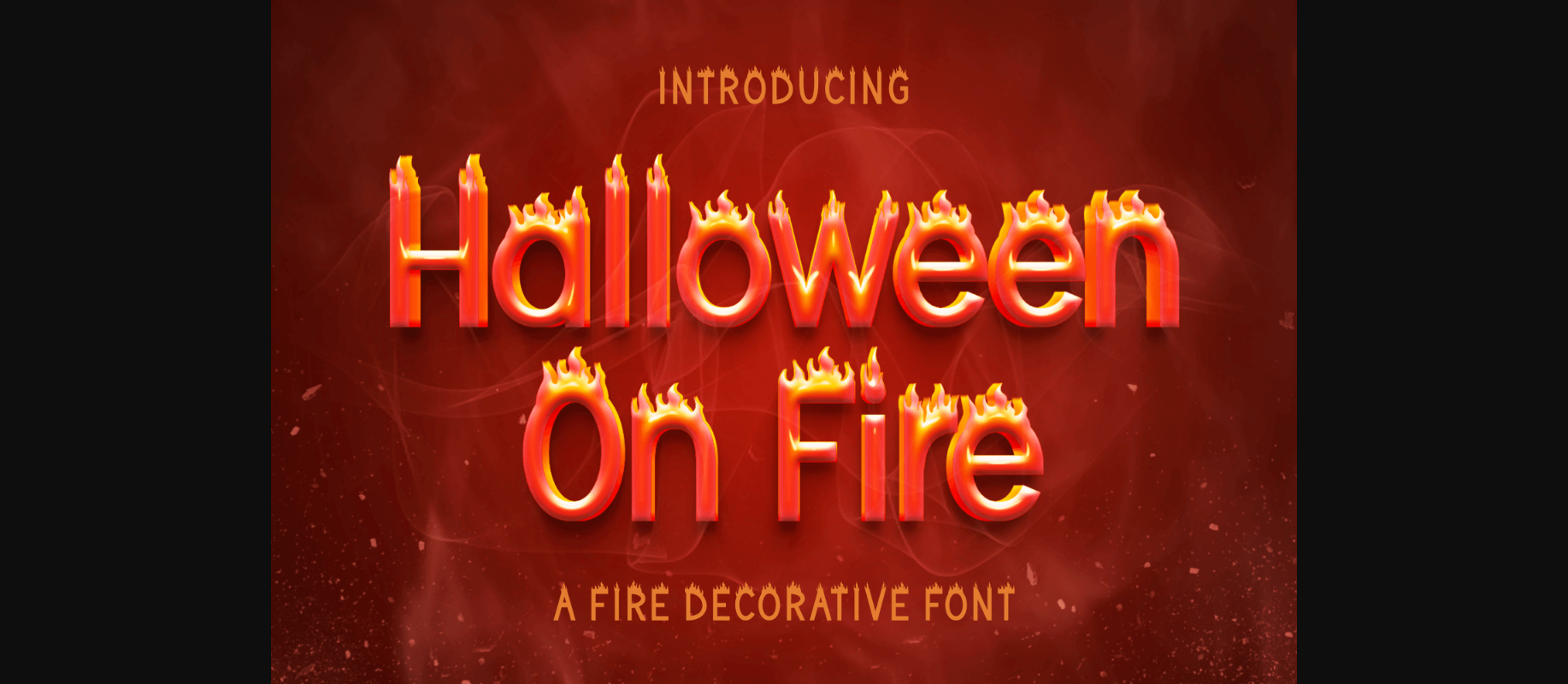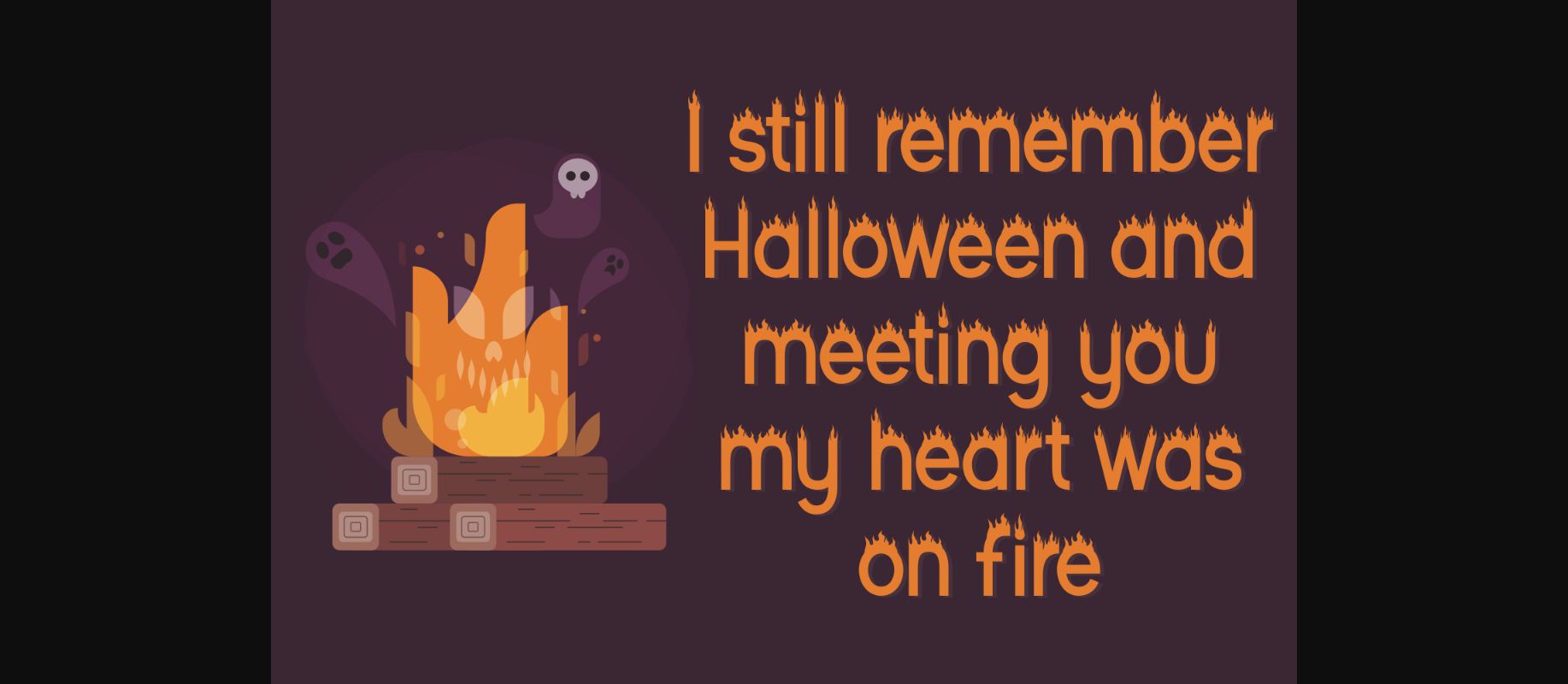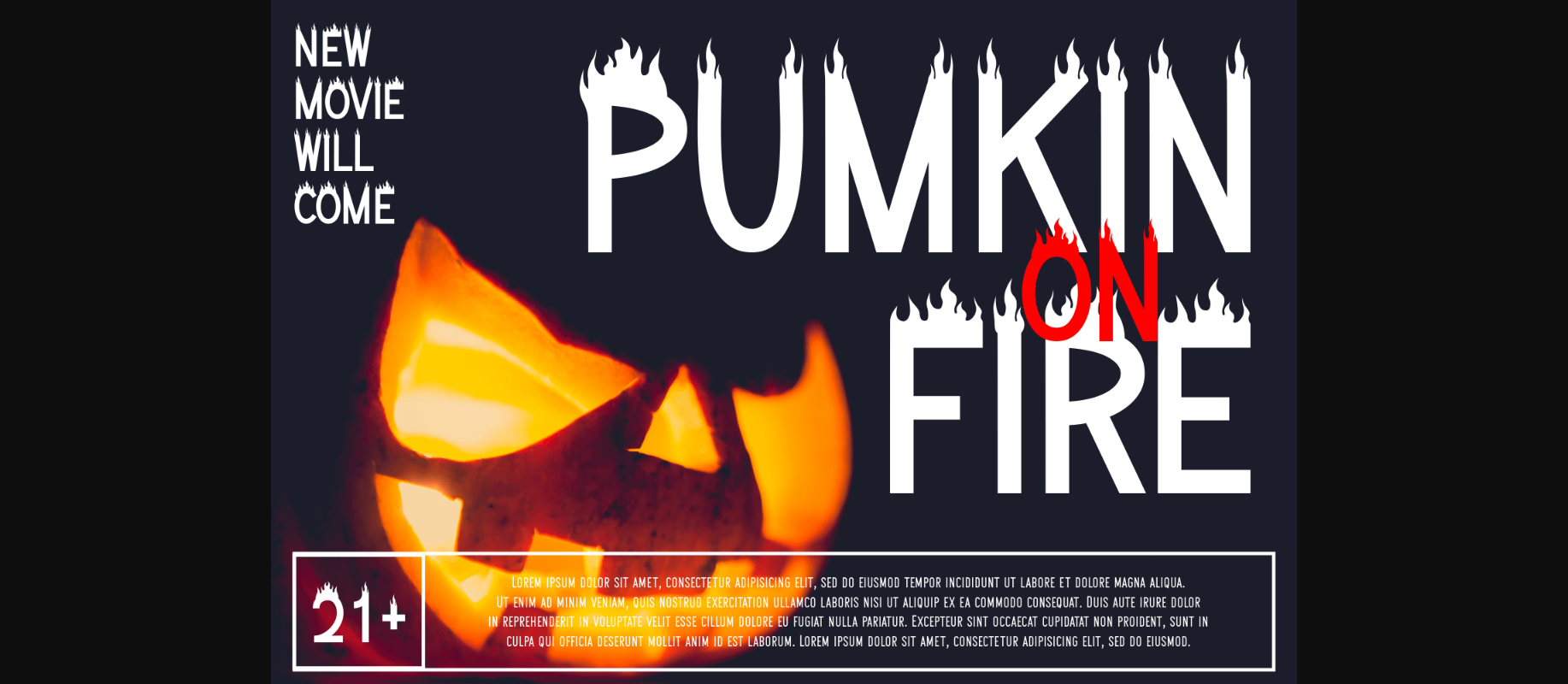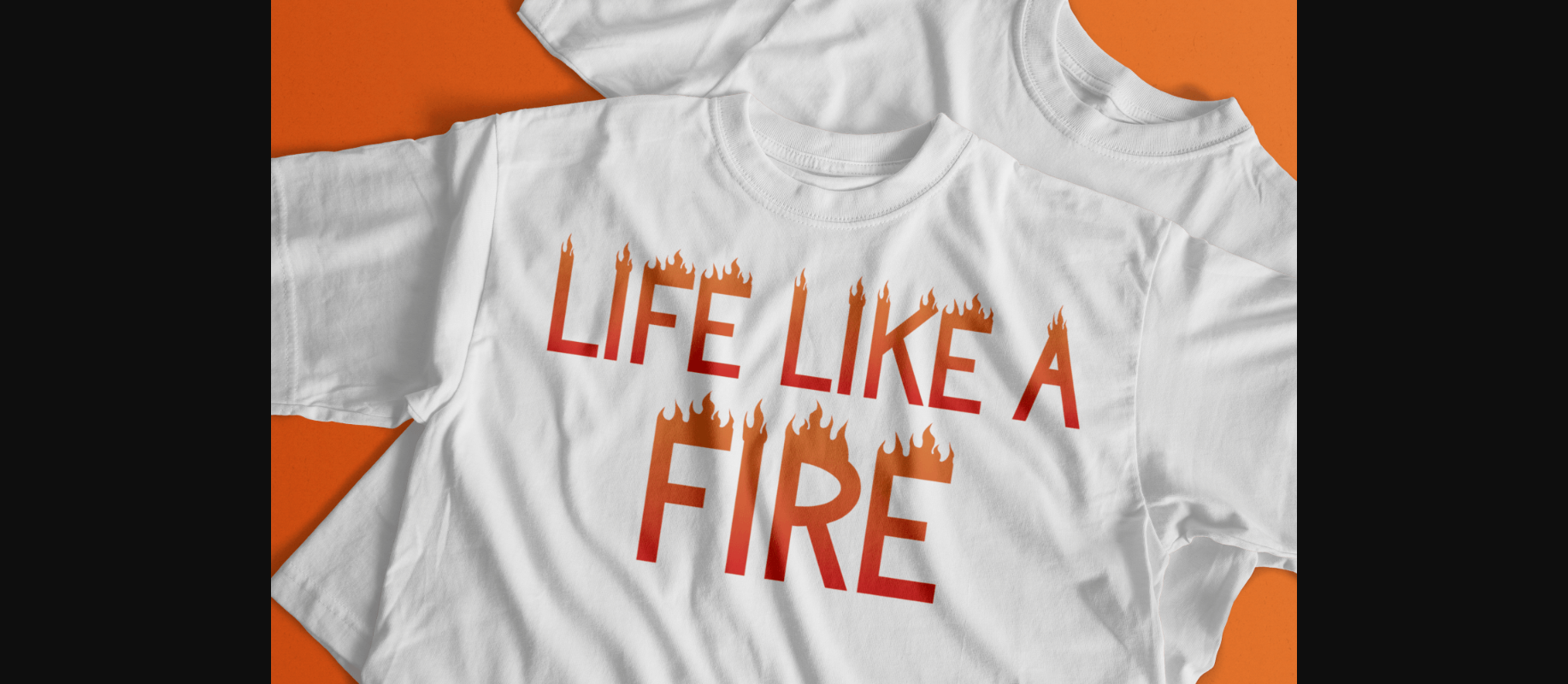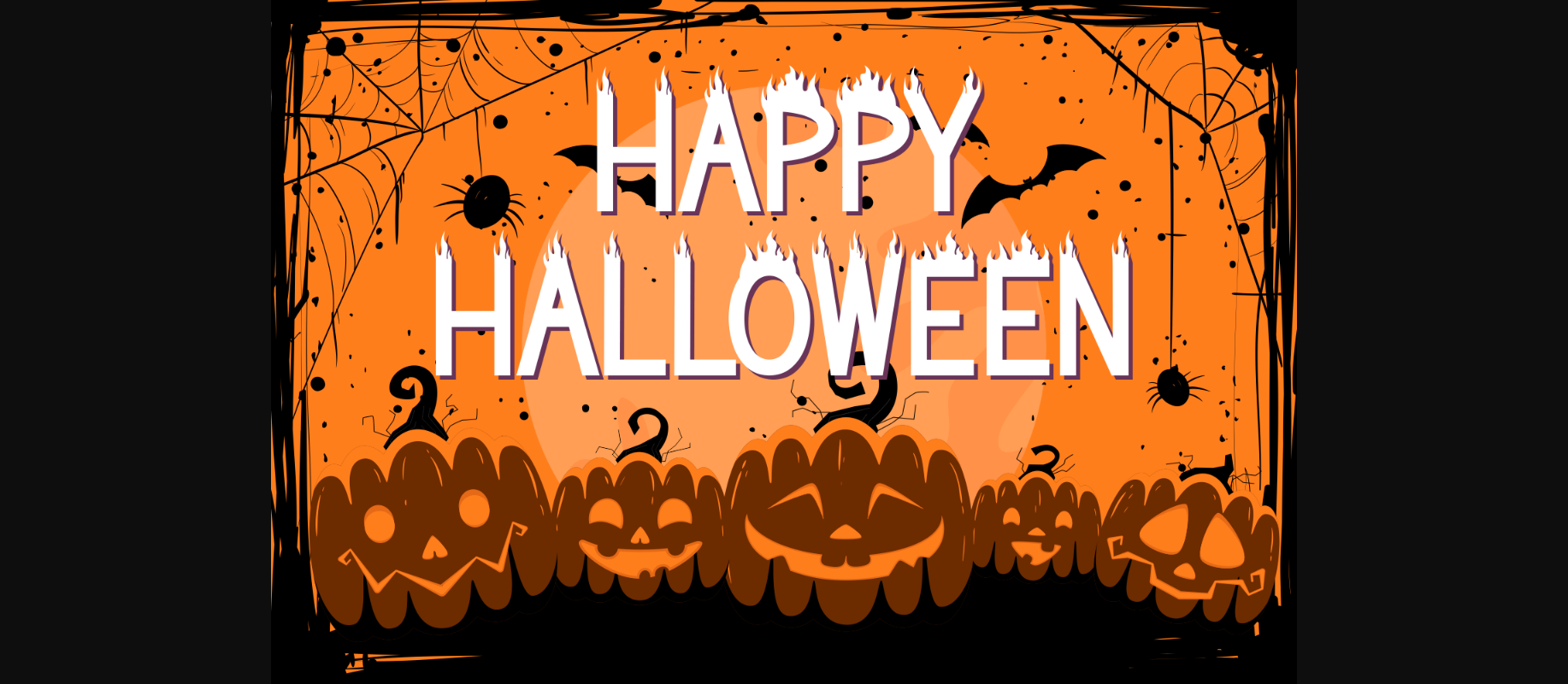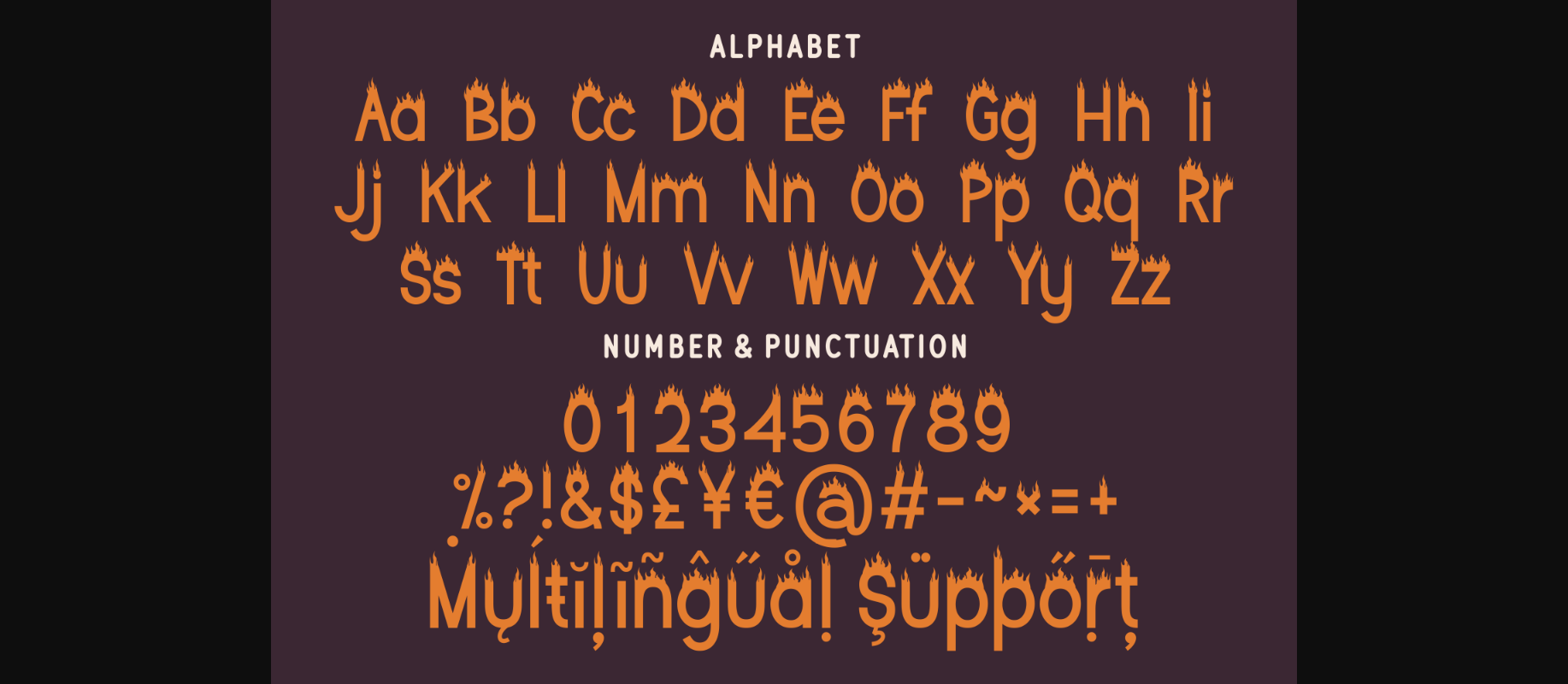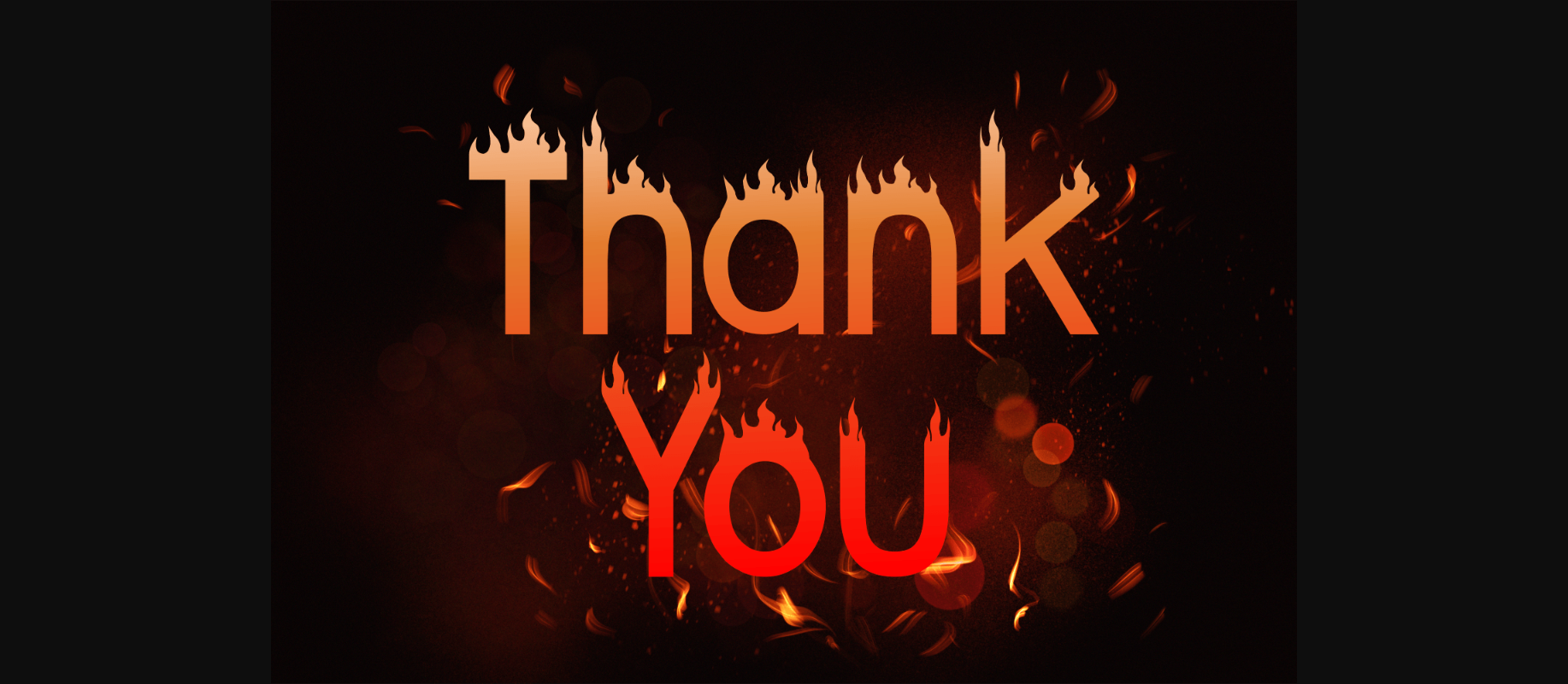
HomeDecorative FontsHalloween on Fire Font Decorative Fonts Halloween on Fire Font FacebookXPinterestWhatsApp 1 of 9 ... Halloween on Fire Font Poster 2... Halloween on Fire Font Poster 3... Halloween on Fire Font Poster 4... Halloween on Fire Font Poster 5... Halloween on Fire Font Poster 6... Halloween on Fire Font Poster 7... Halloween on Fire Font Poster 8... Halloween on Fire Font Poster 9... About Halloween on Fire Font “Halloween On Fire” is a stunning decorative font featuring spooky characters on fire. Use this cool typeface to create the hottest designs for Halloween or other special occasions! DOWNLOAD NOW People also explored Chateau Space Font Umbreilla Font Nextart Light Font Celebrate Font Submica Font Ignorance Lonely Girl Font Delafinka Font Regyman Font 422 0 TagsHalloween on Fire Font Previous articleGroovy Grunge Snowy FontNext articleOcean Wold Font LEAVE A REPLY Cancel reply Comment: Please enter your comment! Name:* Please enter your name here Email:* You have entered an incorrect email address! Please enter your email address here Website: Save my name, email, and website in this browser for the next time I comment. Personal Use Free Capellen Personal Use Free Read more about this font Namskow Personal Use Free Read more about this font Sileighty Personal Use Free Read more about this font Adriator Personal Use Free Read more about this font BLOG 5 Fonts That Will Dominate Design Trends in 2026 5 Fonts for 2026 That Will Dominate Design Trends Typography plays a critical role in visual communication, and as we look ahead to 2026, it’s... Elegant Wedding Invitation Fonts – Handwritten & Script Fonts Transform Your Website: Elevate Your Typography with 7 Best Web Font Generators To increase your work productivity, choose the most readable fonts.